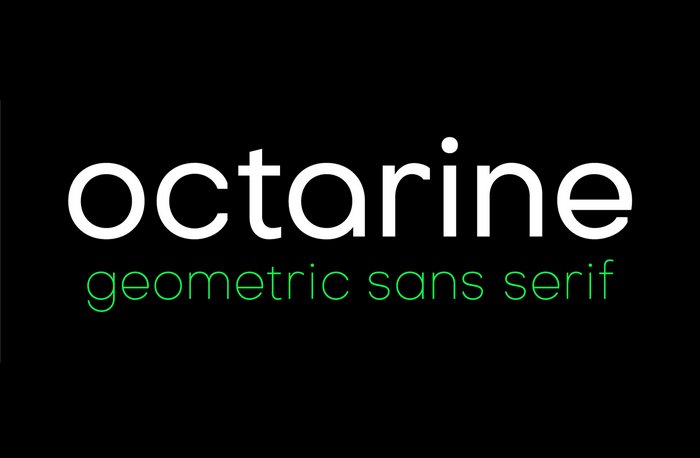
Octarine Font Family
Great! That was my initial feeling. Introducing Octarine Font Family! Octarine designed and shared by Alexander Slobzheninov. It’s a sans serif type family, you have the opportunity to experience it with this free package, add it to your fonts collection. Octarine is a geometric sans serif type family, which has its roots in classic Bauhaus times. It’s based on geometric grid, and its shapes are nice and soft. Nevertheless, you can see sharp elements here and there. That makes letters to look friendly and strong at the same time. Octarine is a modern universal typeface designed for logotypes, posters, covers, brands, headlines, titles and for text.